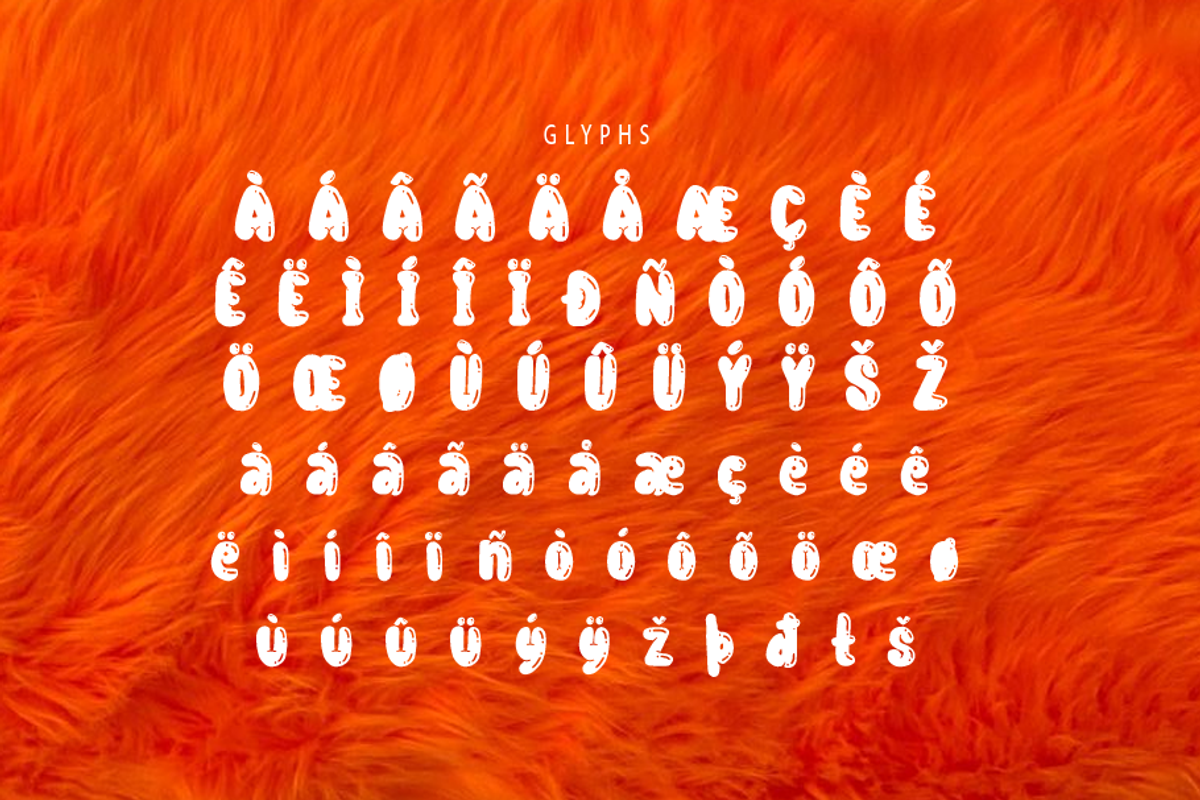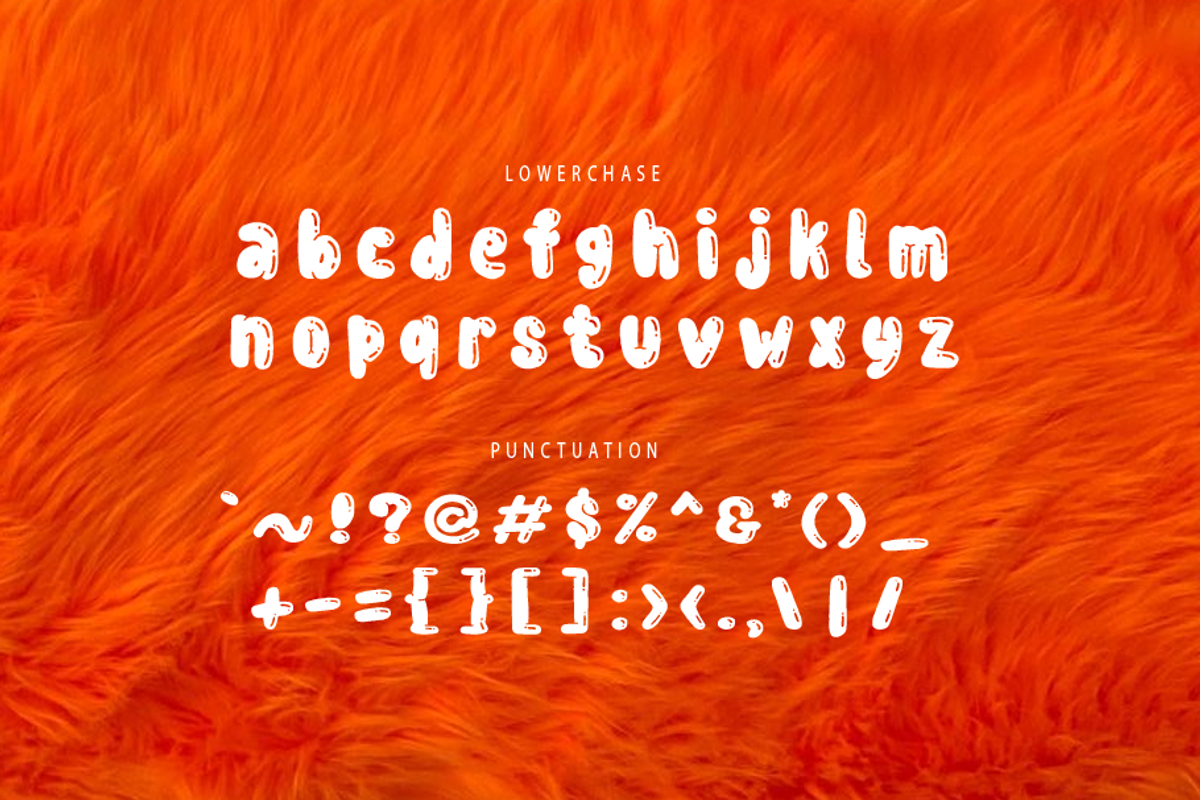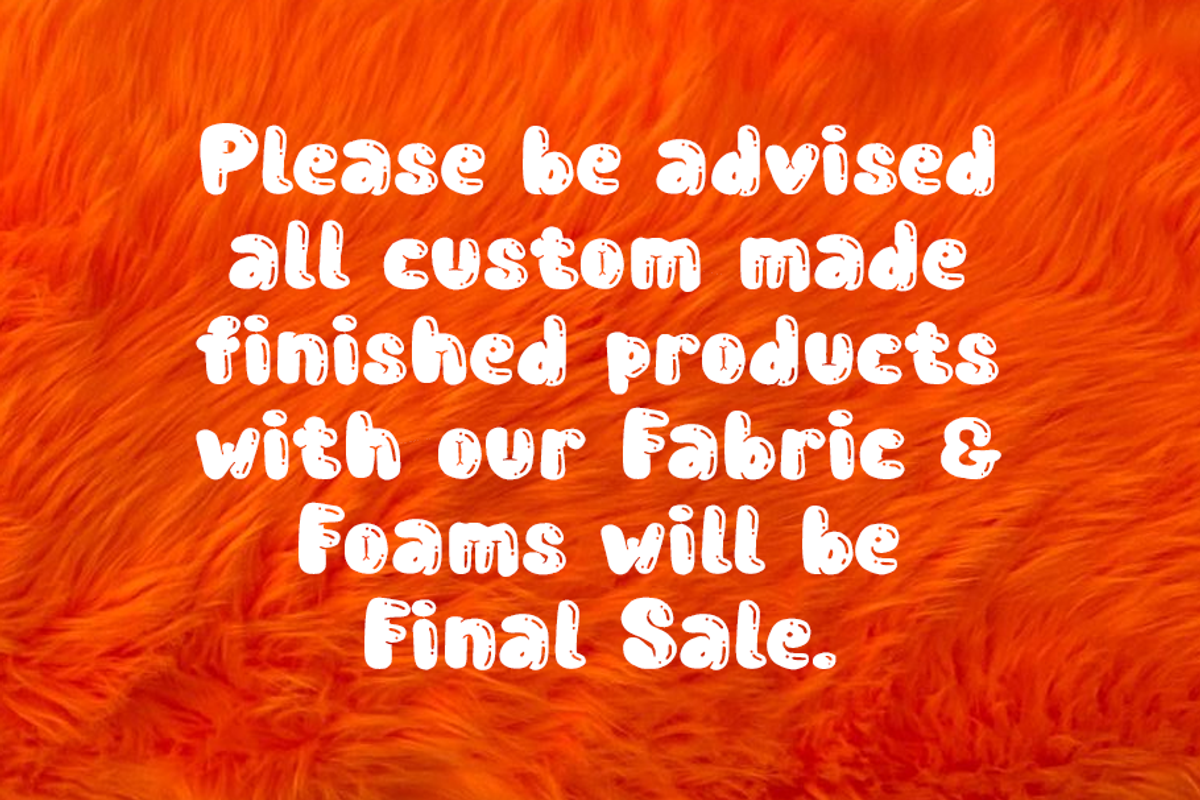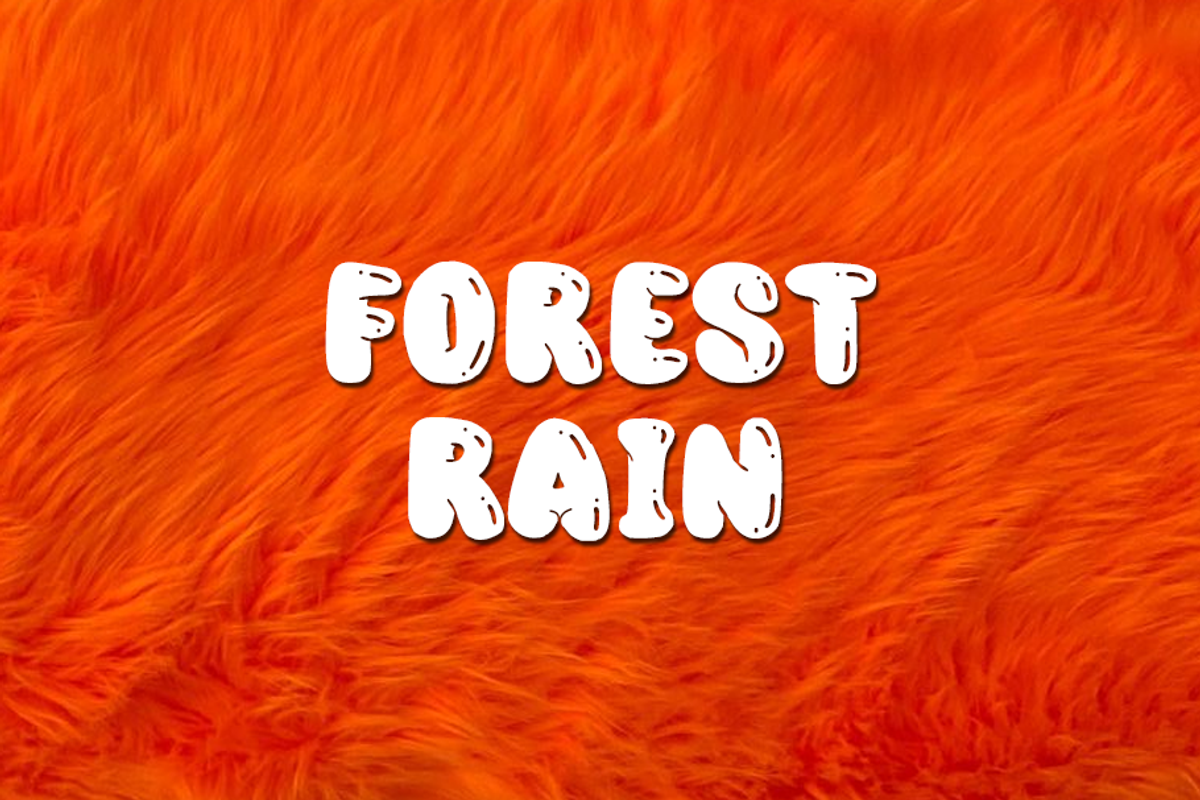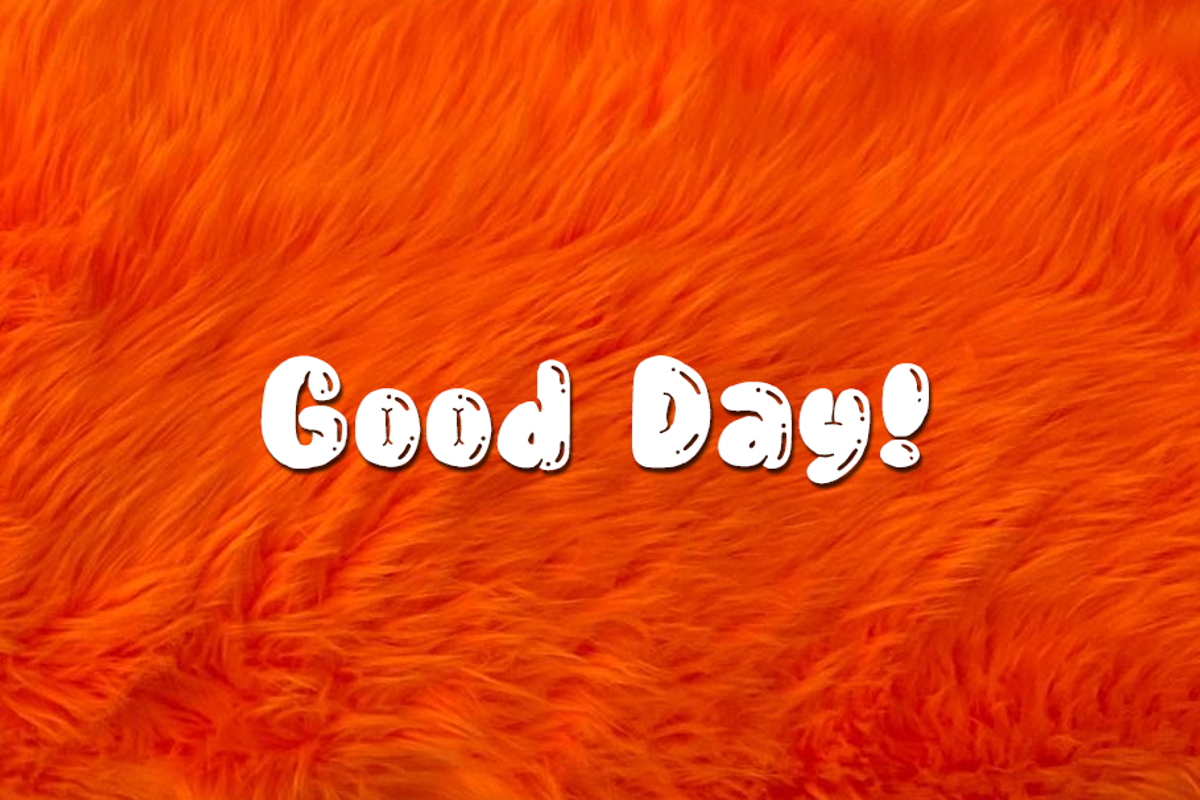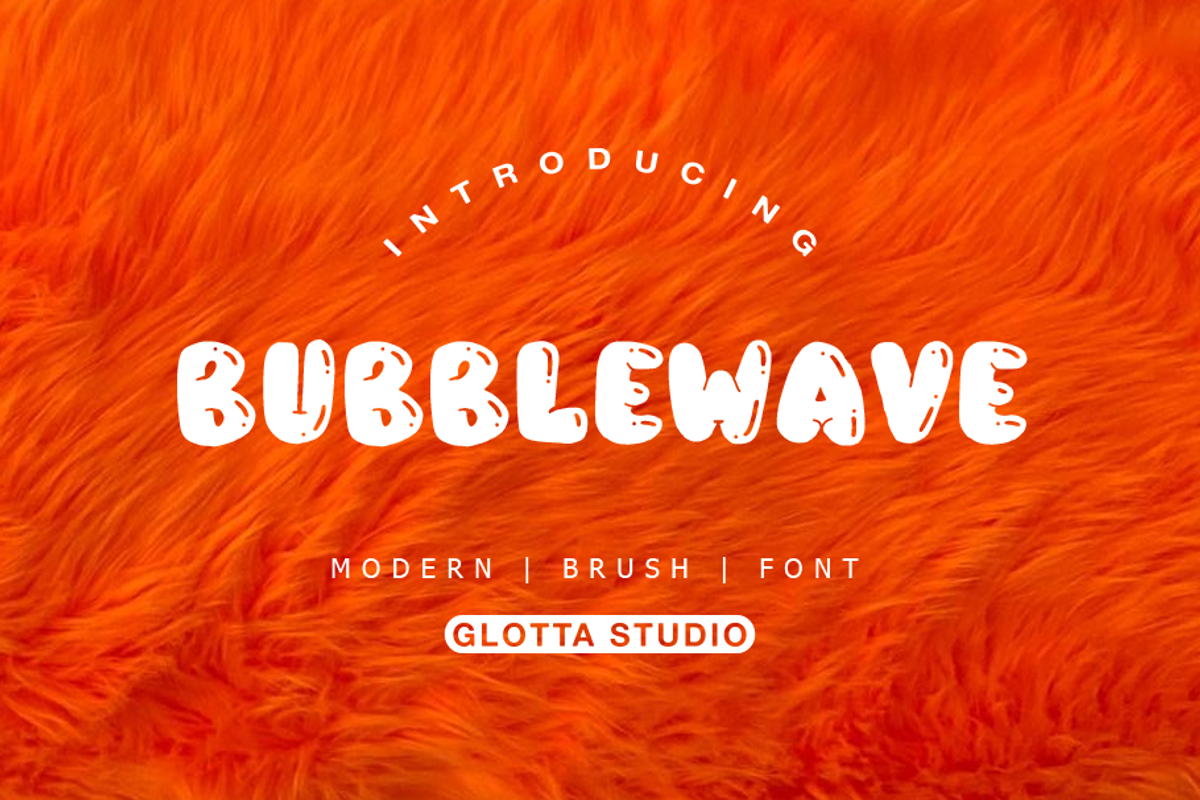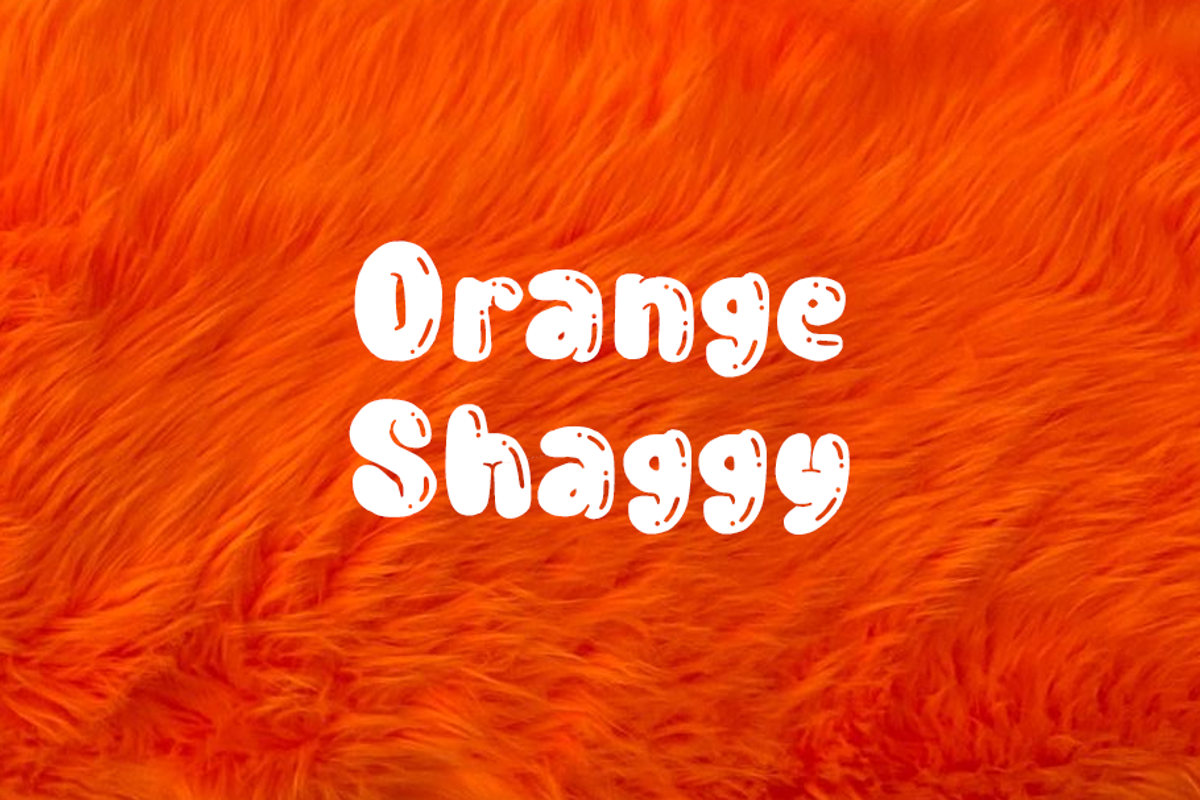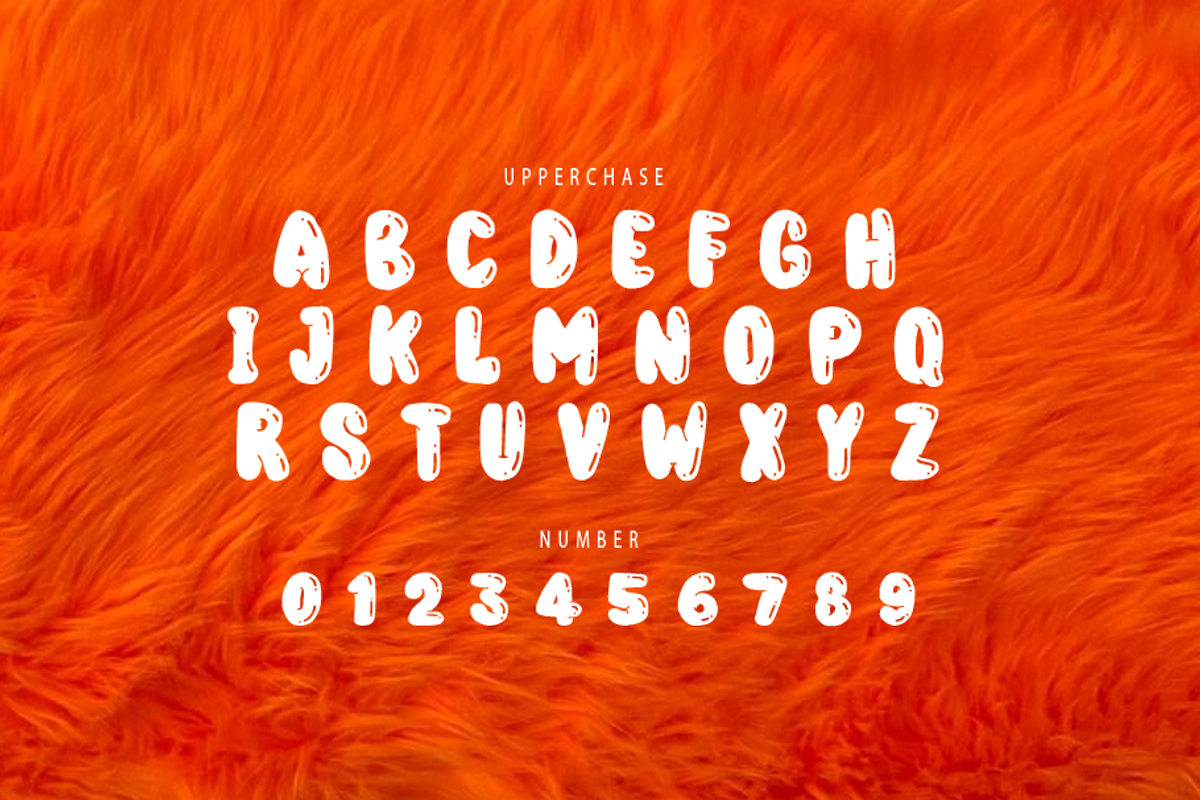
Bubblewave
Bubblewave is classic font it’s looks kids text, Americans, classy and easy to use. Bubblewave is the great choice for watermark on movie industry, poster design, quotes, album cover, business card and many other design project. Bubblewave is here to make your work or your business to high level!!! Features
- Numerals and Functional
- Alternate and ligature